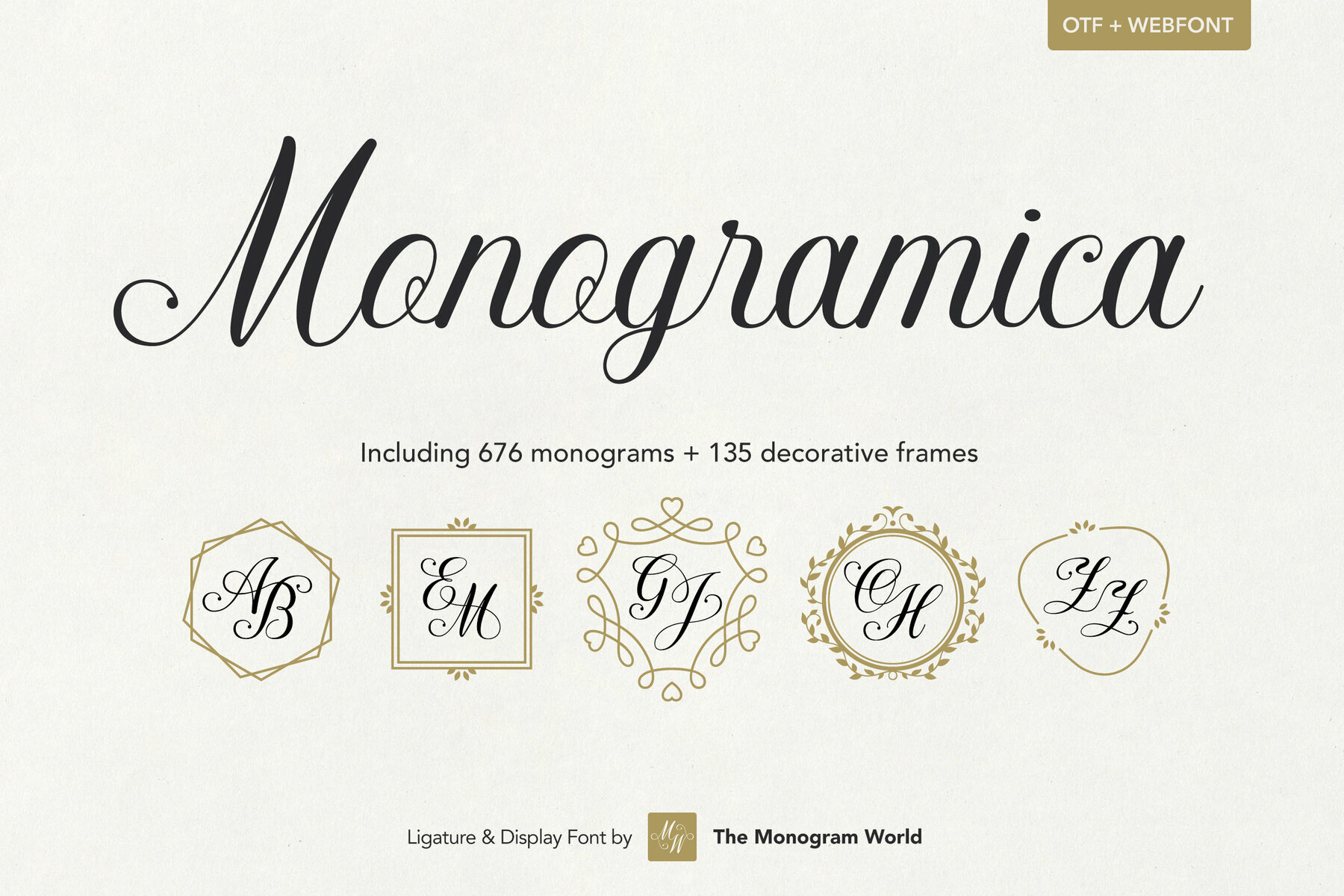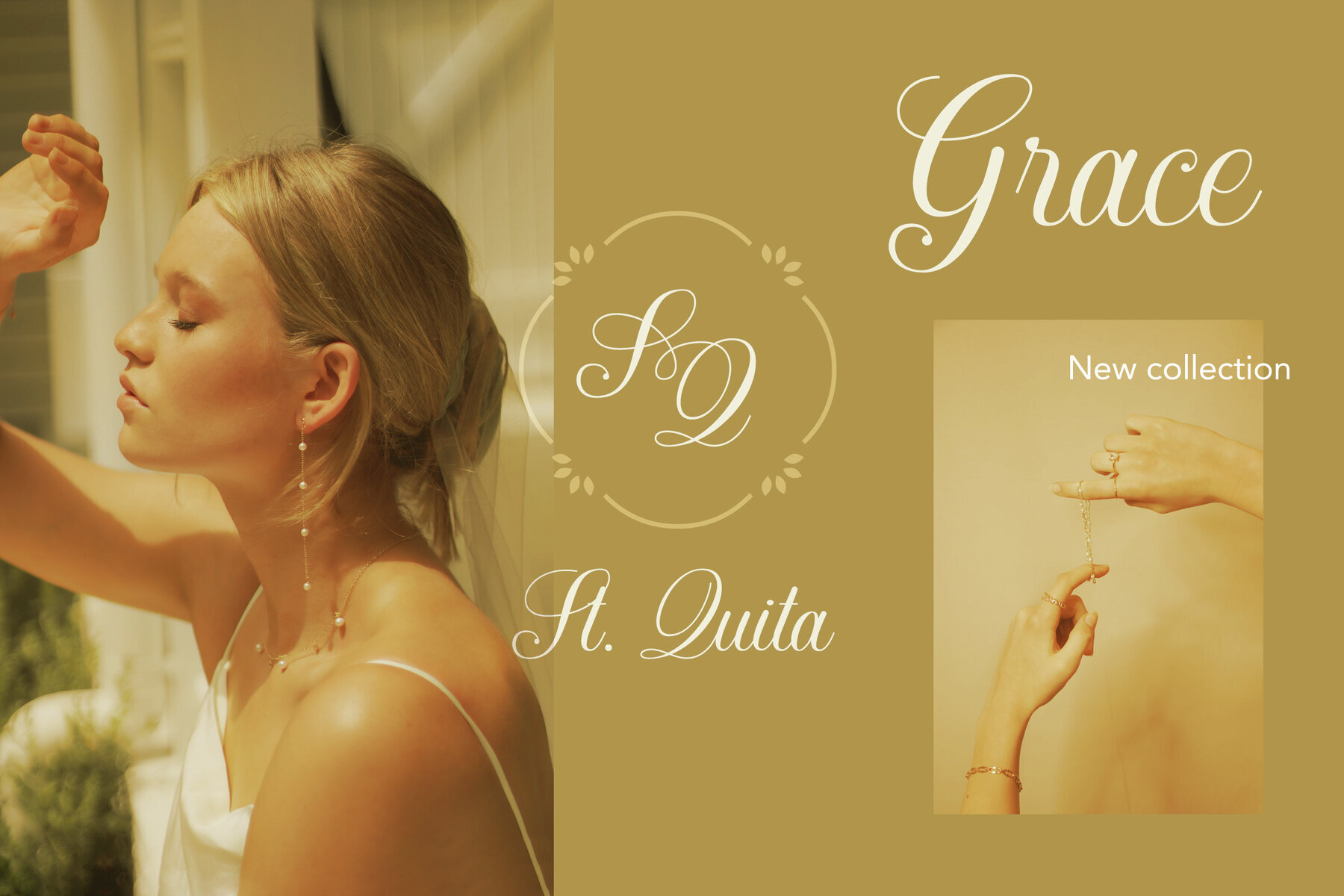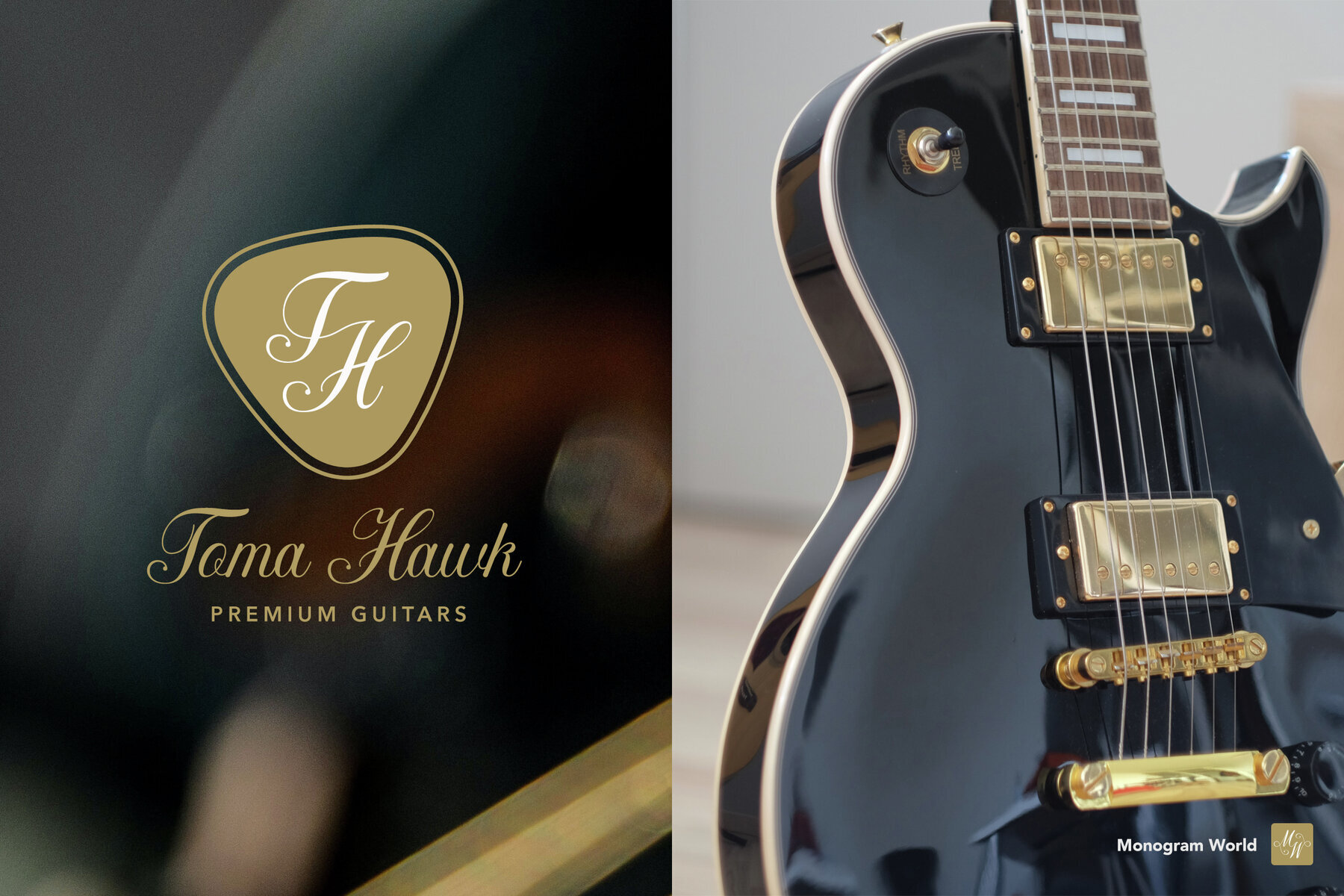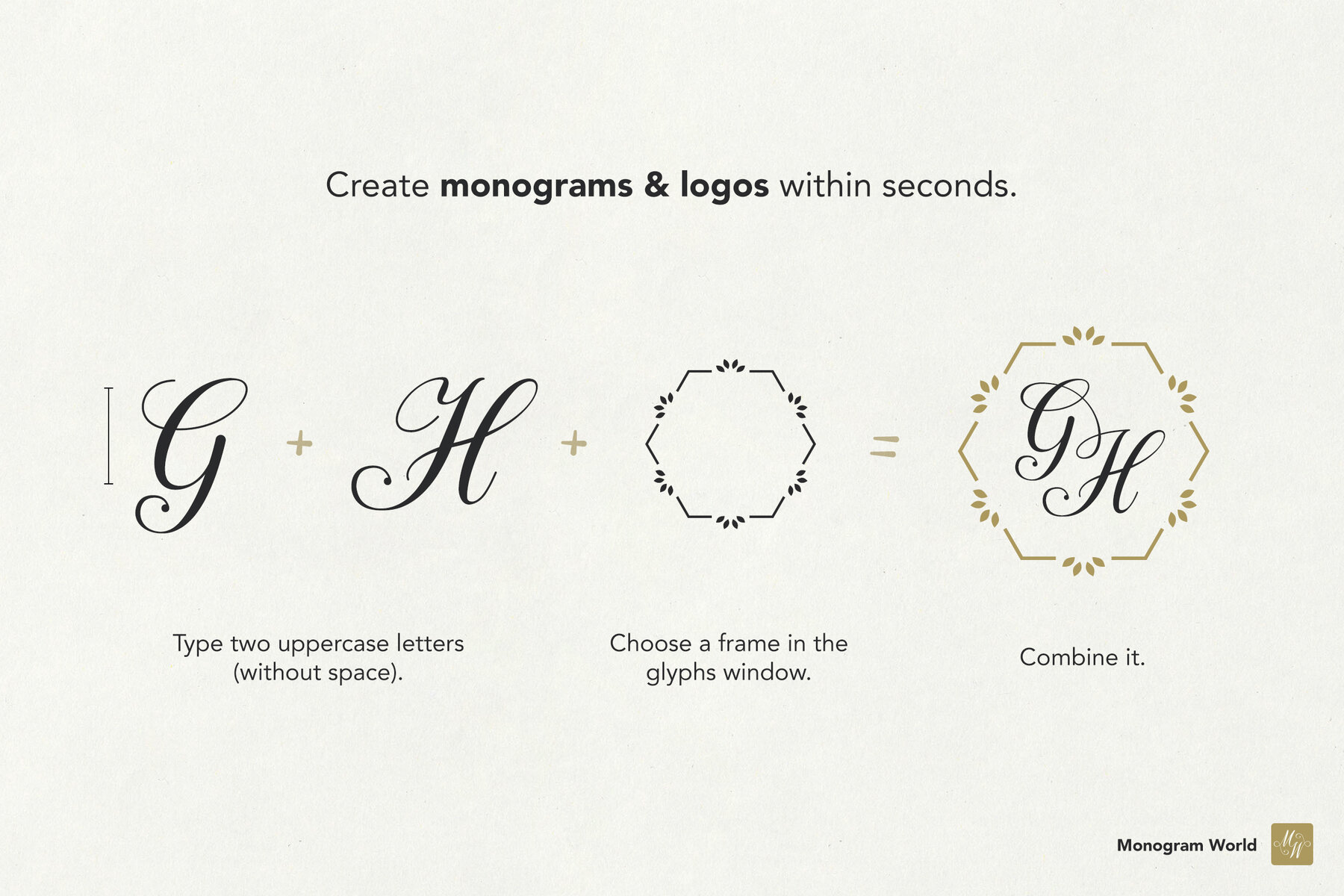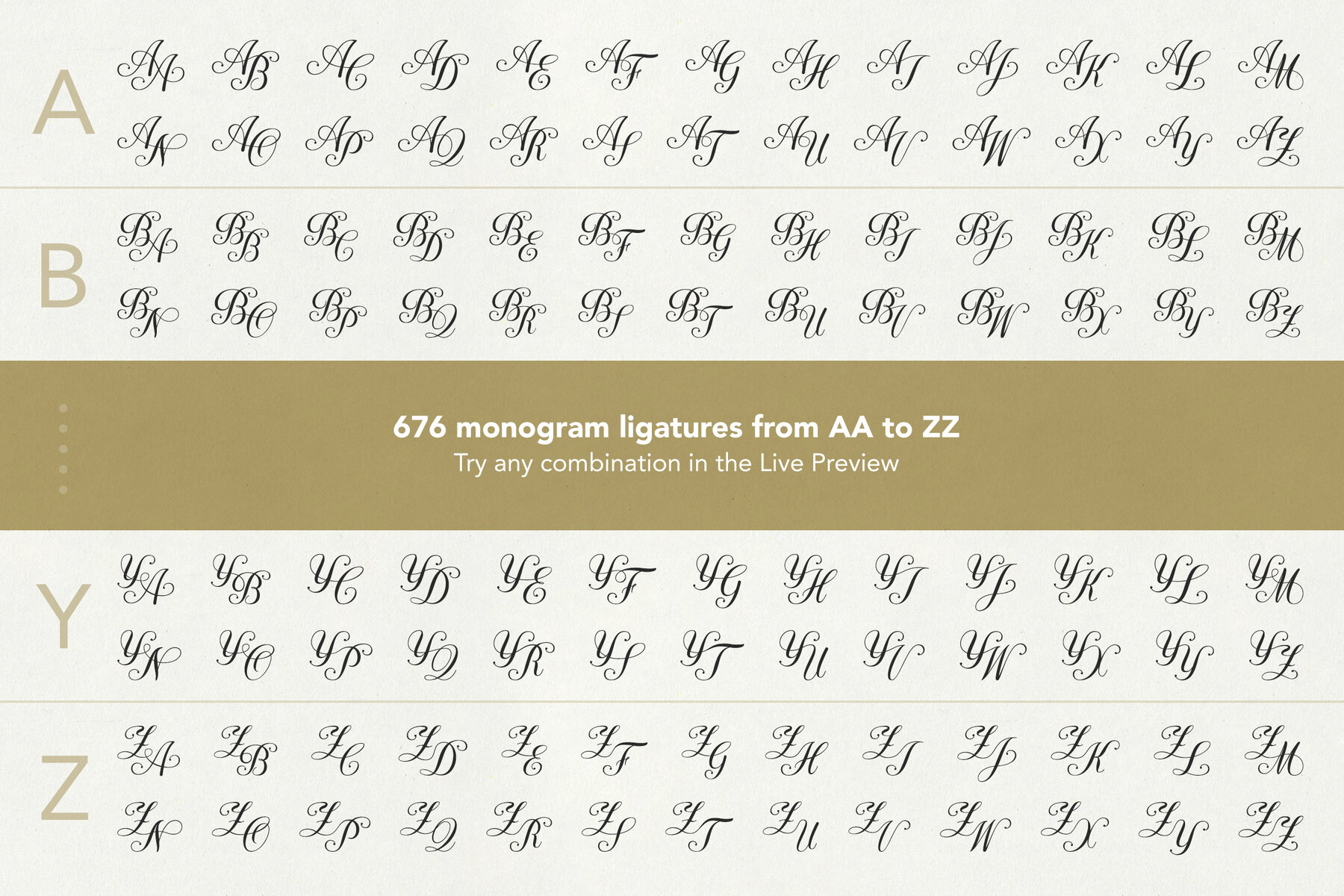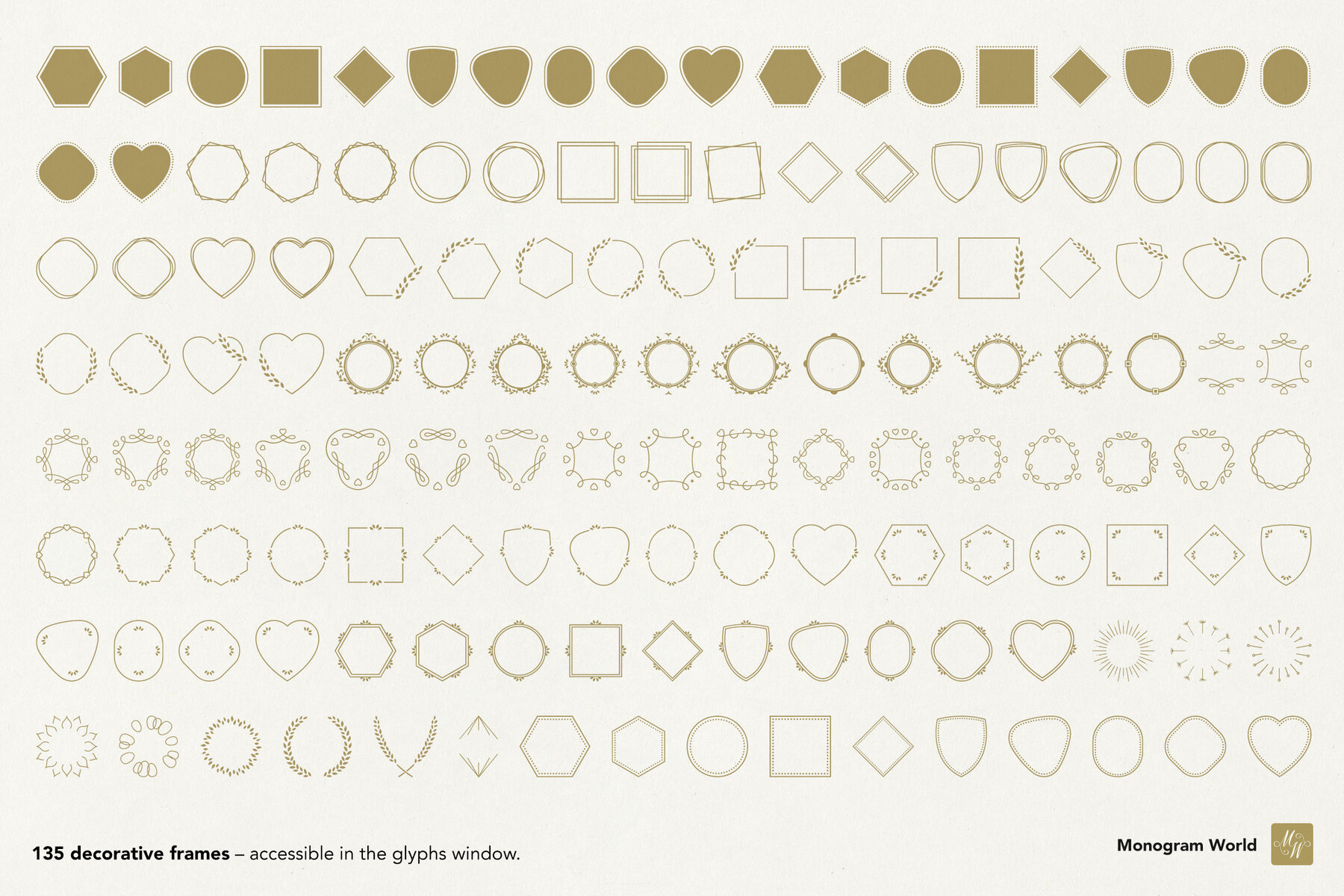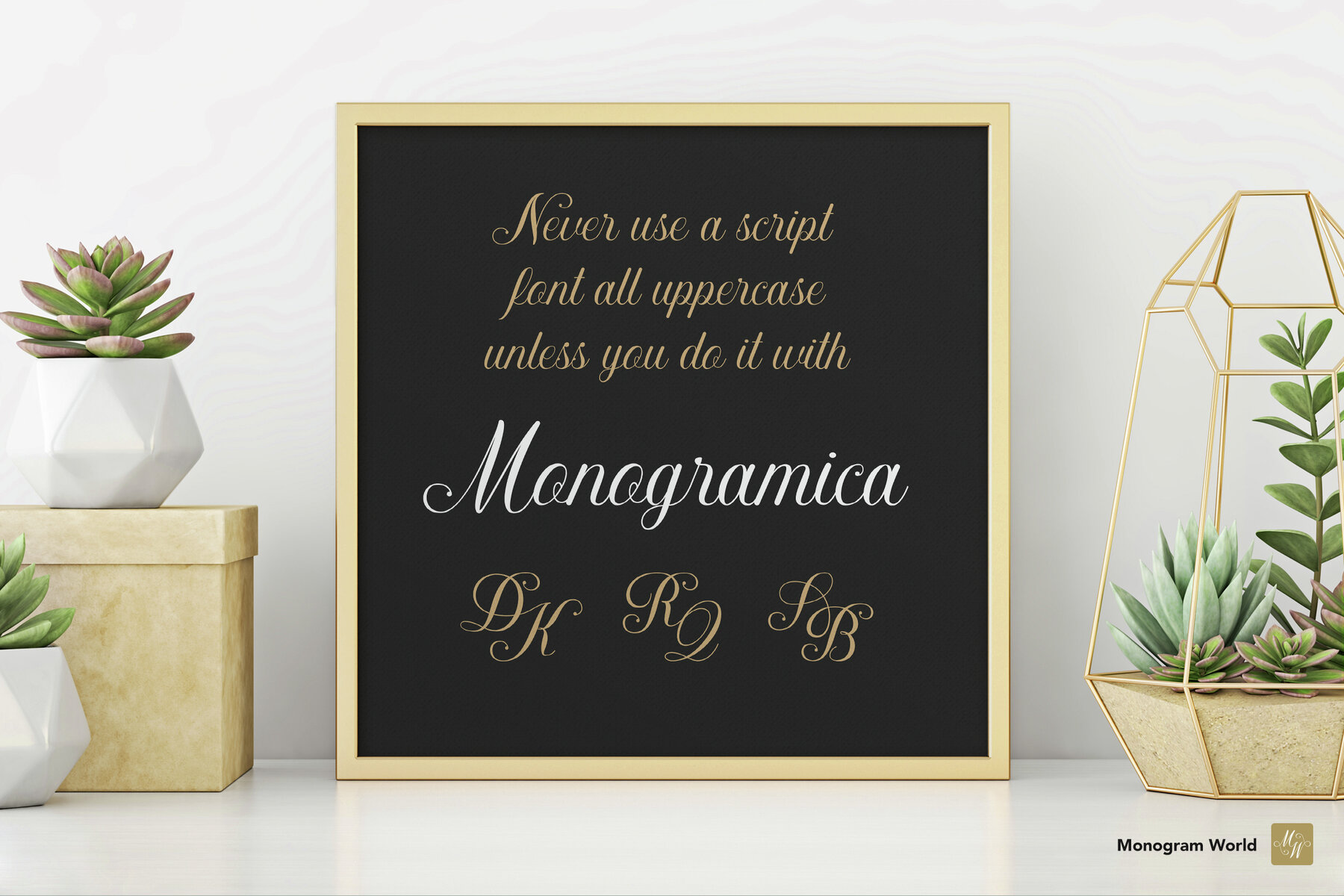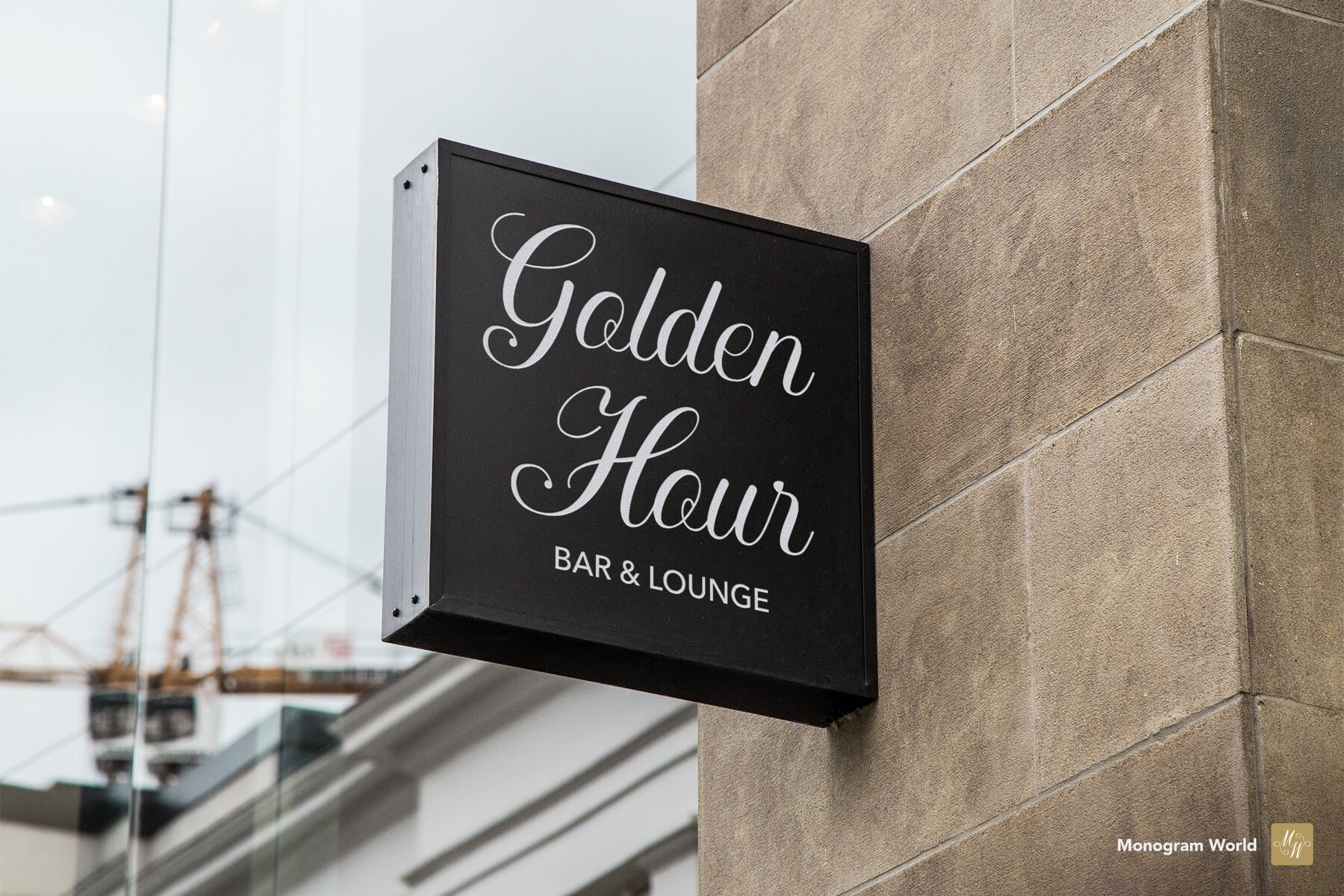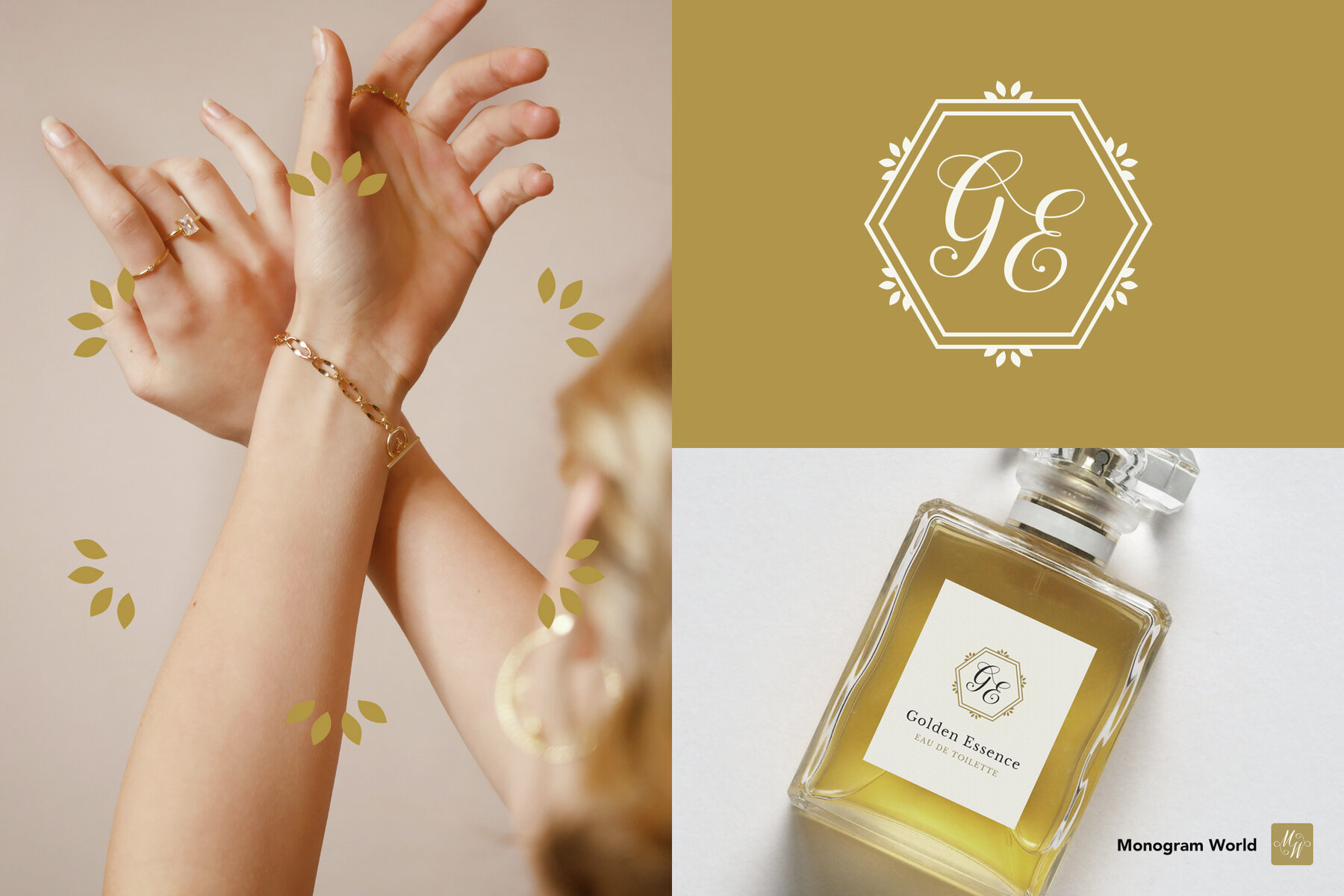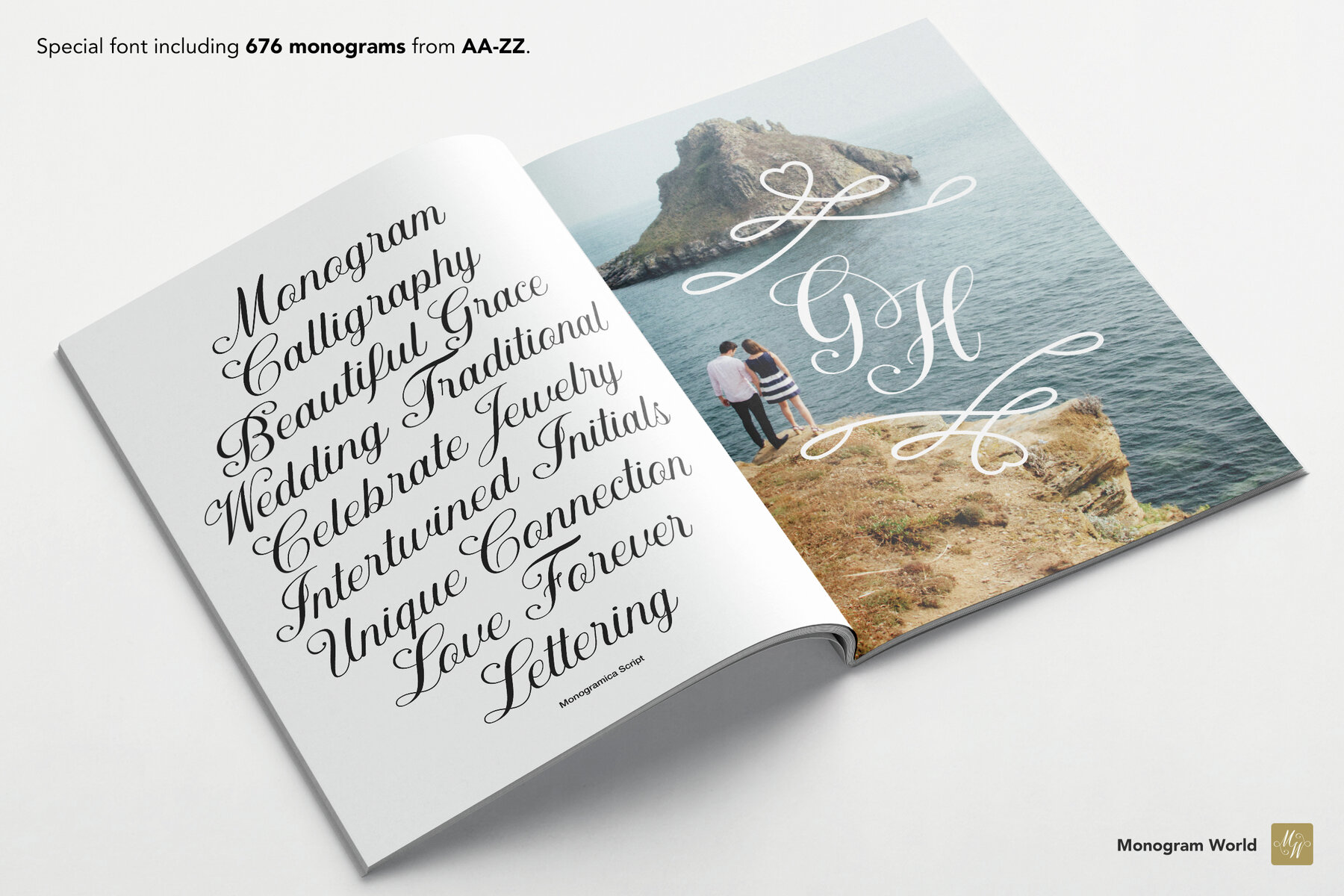
Monogramica Font
Monogramica Script
Monogramica is a sophisticated calligraphy typeface that elegantly combines art and function, making it the first true monogram font. Featuring 676 premade, interlaced uppercase monograms easily accessed through automatic ligatures, it's perfect for creating bespoke designs. Simply type combinations like A + B to instantly generate the monogram AB. This font is a versatile asset for luxury and artistic businesses, ranging from fashion and jewelry to hotels and fine dining. Its classic calligraphy roots, softened by rounded line tops, offer a modern edge. Monogramica includes lowercase and uppercase letters, numbers, punctuation, and special characters to support major Western languages. Please note: Some browsers may display incorrect letter spacing, but rest assured the final font file is meticulously crafted.Elegant Monogramica Script Calligraphy Font
Unique intertwined letters for weddings & more. Creative monogram fonts, ready to use for your whole wedding design or any traditional or elegant business & branding. Find your letter combination from AA-ZZ! Check my instagram & pinterest for usage inspiration.